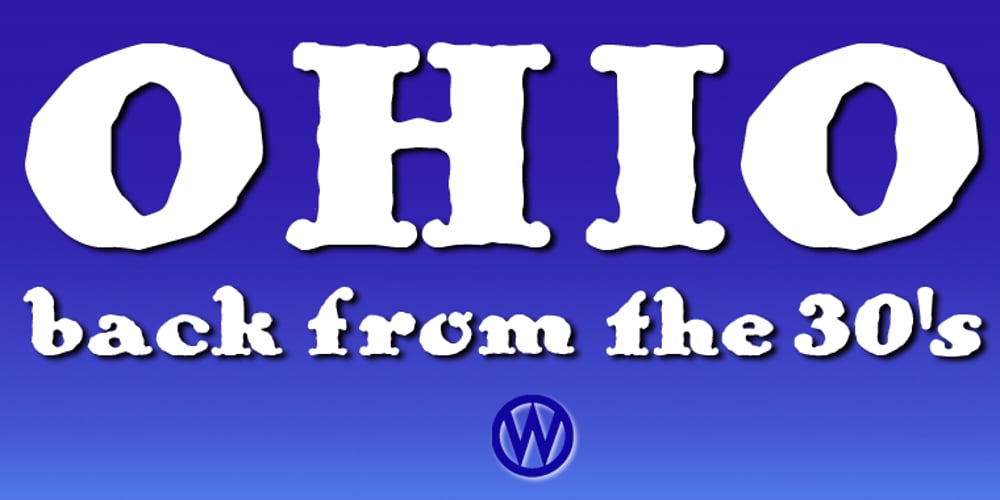
Ohio Font Family was designed by Gert Wiescher and published by Wiescher Design. Ohio contains 1 styles and family package options. OHIO is a rough headline type in the tradition of Louis Oppenheimer. It is closely related to Lo-Type from Berthold, redesigned in the 1980s by Erik Spiekermann. Matter of fact, I discovered Ohio while visiting Erik in Berlin, searching his endless archive. Your typeface-looter Gert Wiescher